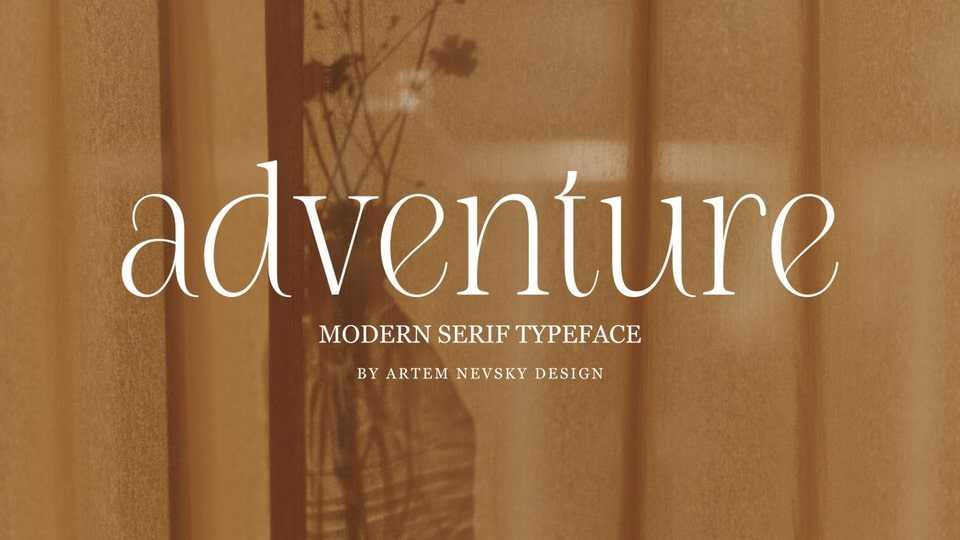
Download NT Adventure font, a new serif typeface. This elegant font needs to be in your collection and is perfect for your next luxury design project.
Designer: Artem Nevsky